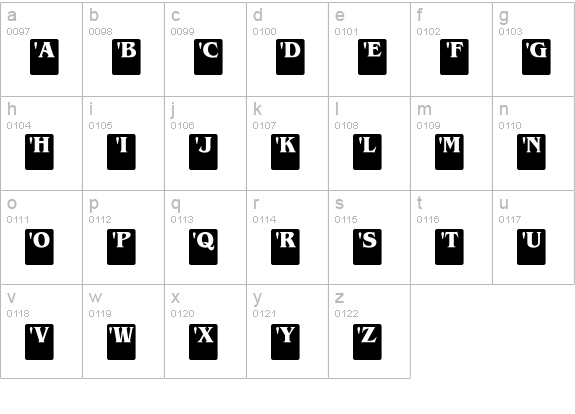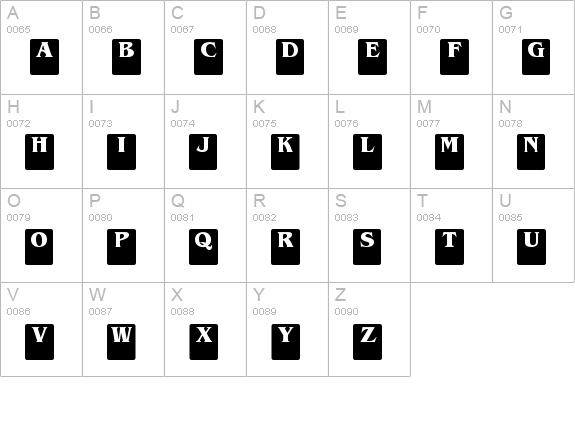
DropCaps Serif Font Details
DropCaps Serif font is a stunning and elegant typeface that exudes sophistication and charm. With its classic serifs and beautifully designed drop caps, this font is perfect for adding a touch of luxury to your designs. Whether you're creating invitations, posters, or branding materials, DropCaps Serif will surely make a statement. The font features exquisite detailing and a timeless appeal, making it a versatile choice for a wide range of projects. Its readability and distinct character shapes make it stand out from the crowd, while still maintaining a sense of refinement and elegance. Best of all, DropCaps Serif font is completely free to download at FontsMarket.com. So go ahead and add this exquisite typeface to your collection today and elevate your designs to new heights.